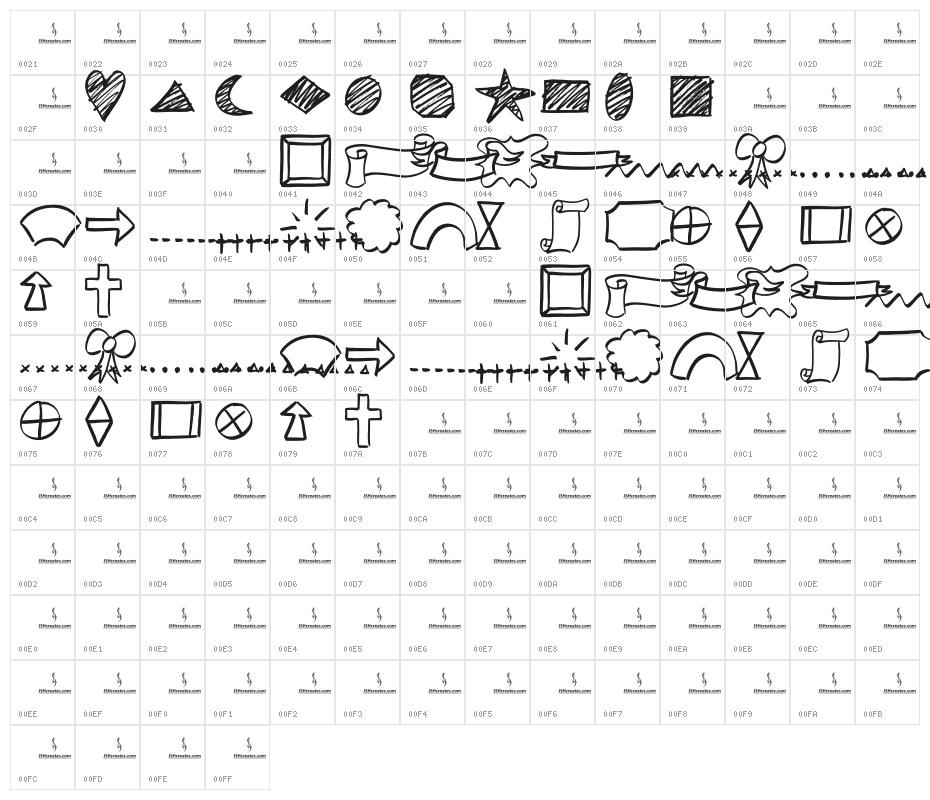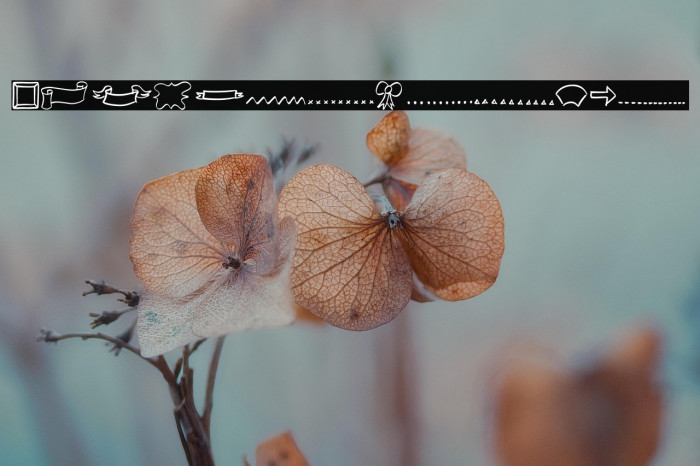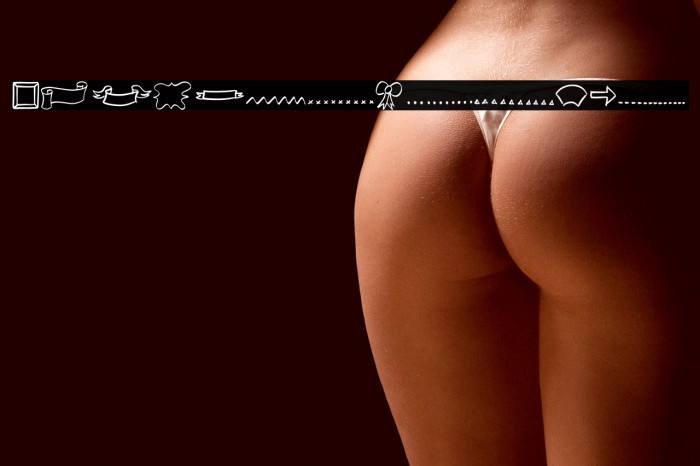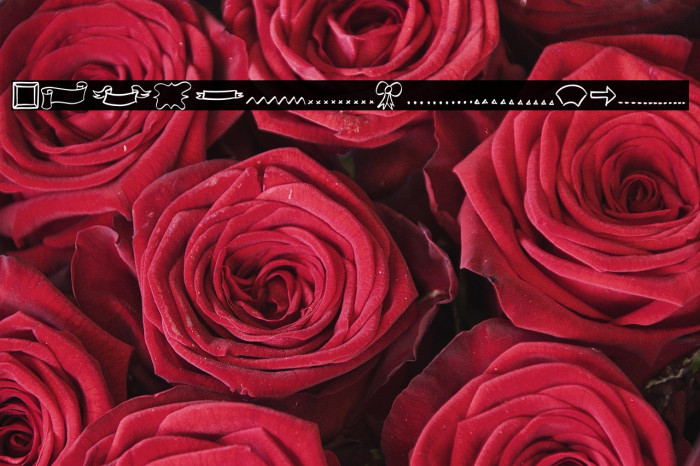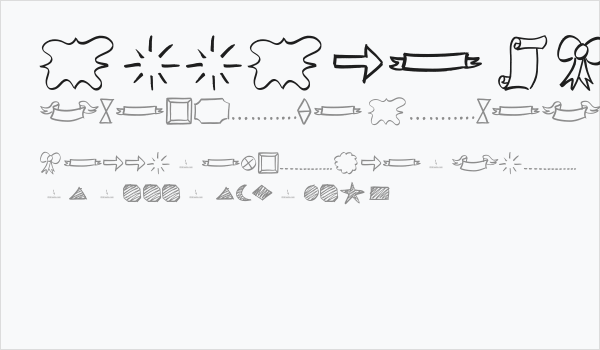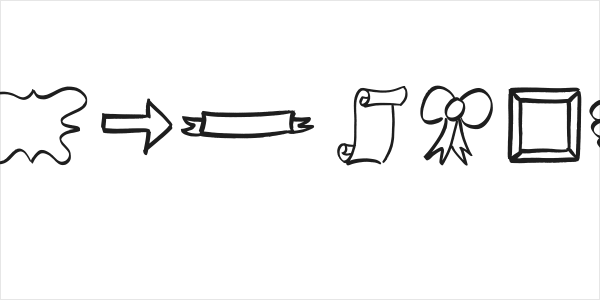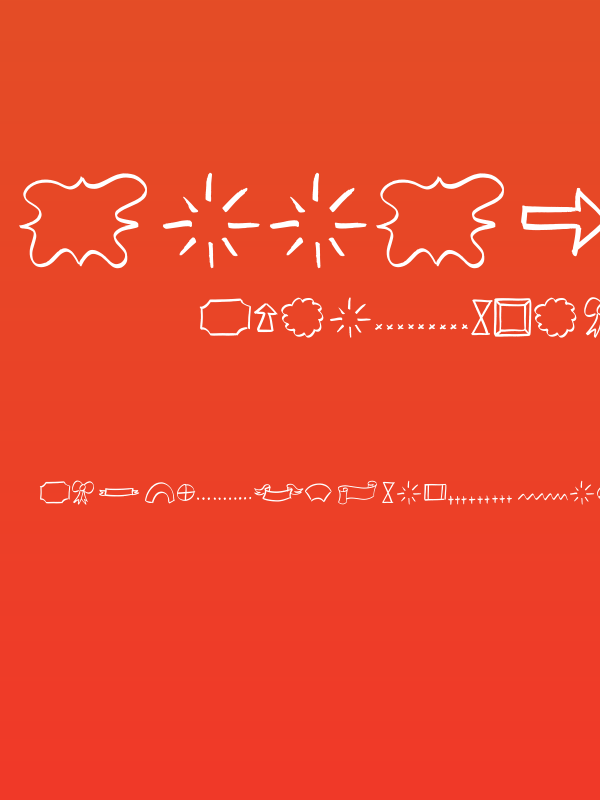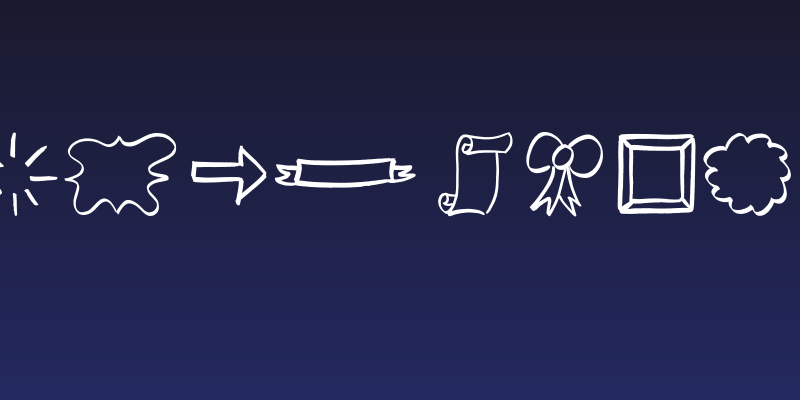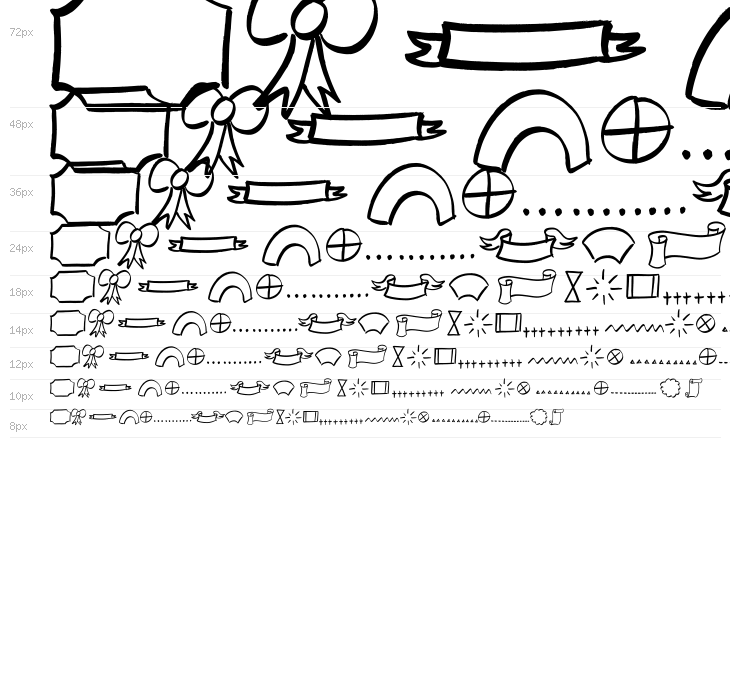
Doodle Shapes Font
A playful, hand-drawn dingbat set featuring various doodle-style shapes, arrows, banners, geometric forms, and decorative elements with irregular, sketchy outlines.
Overall StylePlayful, Whimsical, Decorative
Use CaseIcons, Decorative elements, Illustrations, Accents
Proposed ProjectsChildrenÒ€ℒs books, educational materials, scrapbooking, greeting cards, playful branding, creative presentations.